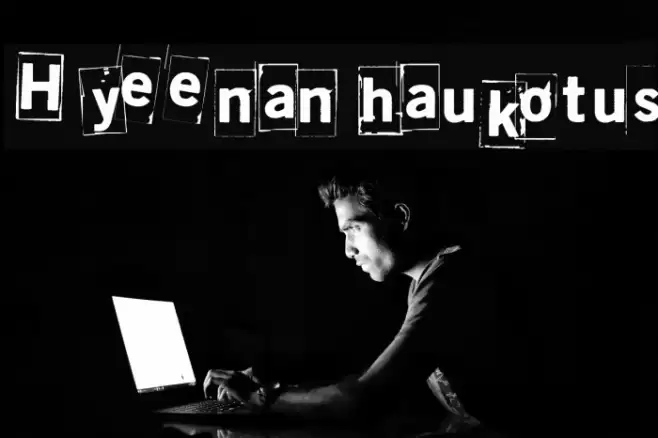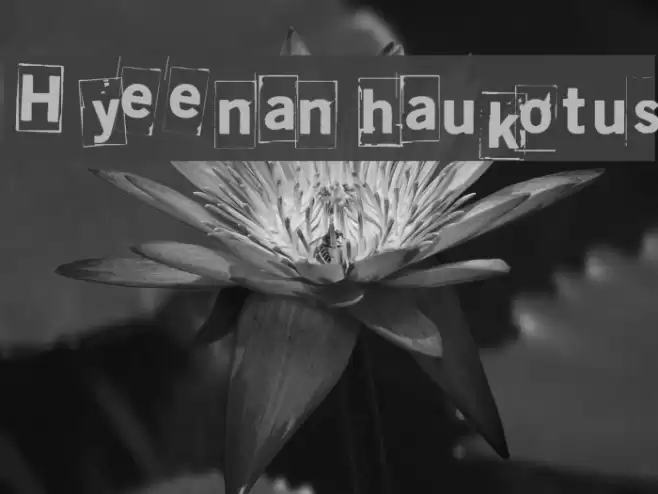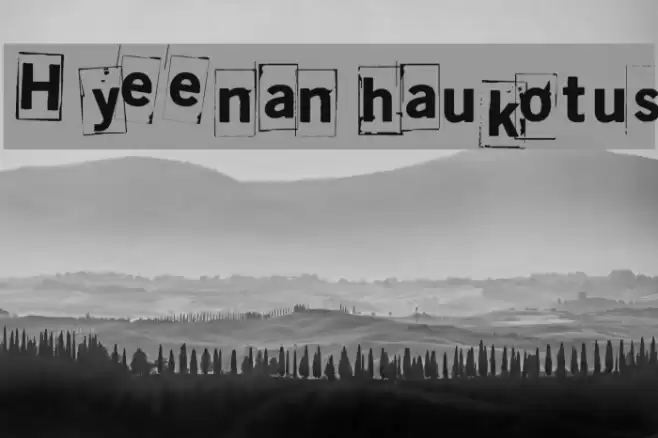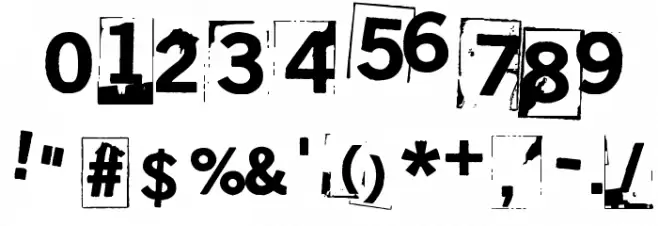
Hyeenan haukotus Font
Hyeenan haukotus Description
This font exhibits a unique, distressed style reminiscent of cut-out letters from magazines or newspapers. Each character appears to be individually crafted with varying levels of wear and tear, creating a chaotic yet intriguing visual effect. The letters are encased in irregular boxes, adding to the ransom note aesthetic. The font combines uppercase and lowercase letters with numbers and special characters, all maintaining the same rugged, textured appearance. This design choice gives the font a rebellious and edgy feel, suitable for projects that require a bold statement.
A distressed, cut-out style font with a chaotic, edgy appearance from Uncategorized fonts.
- Proposed Projects: Ideal for use in posters, album covers, or any design requiring a rebellious or unconventional look.
- Use Case: Headlines, Posters, Album covers